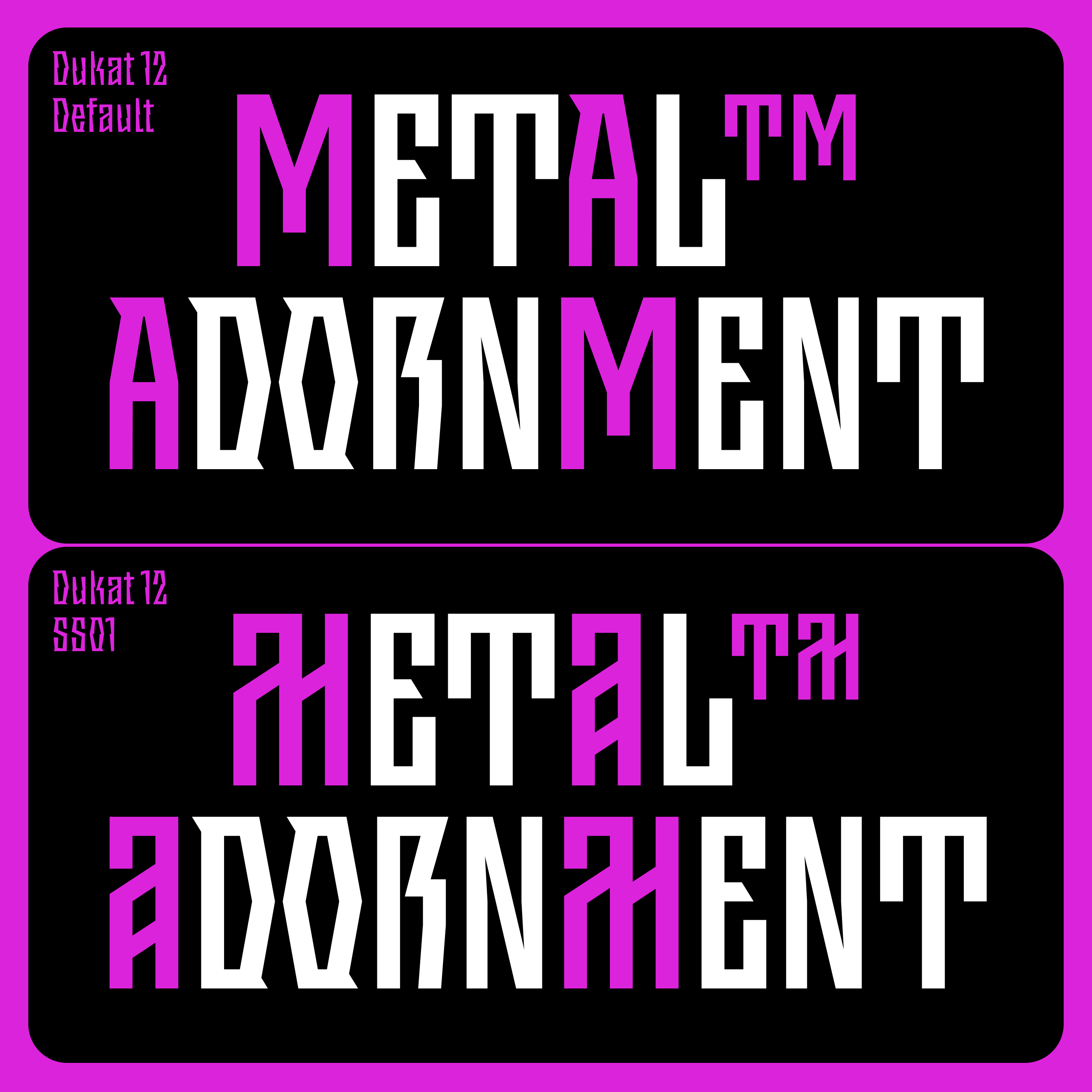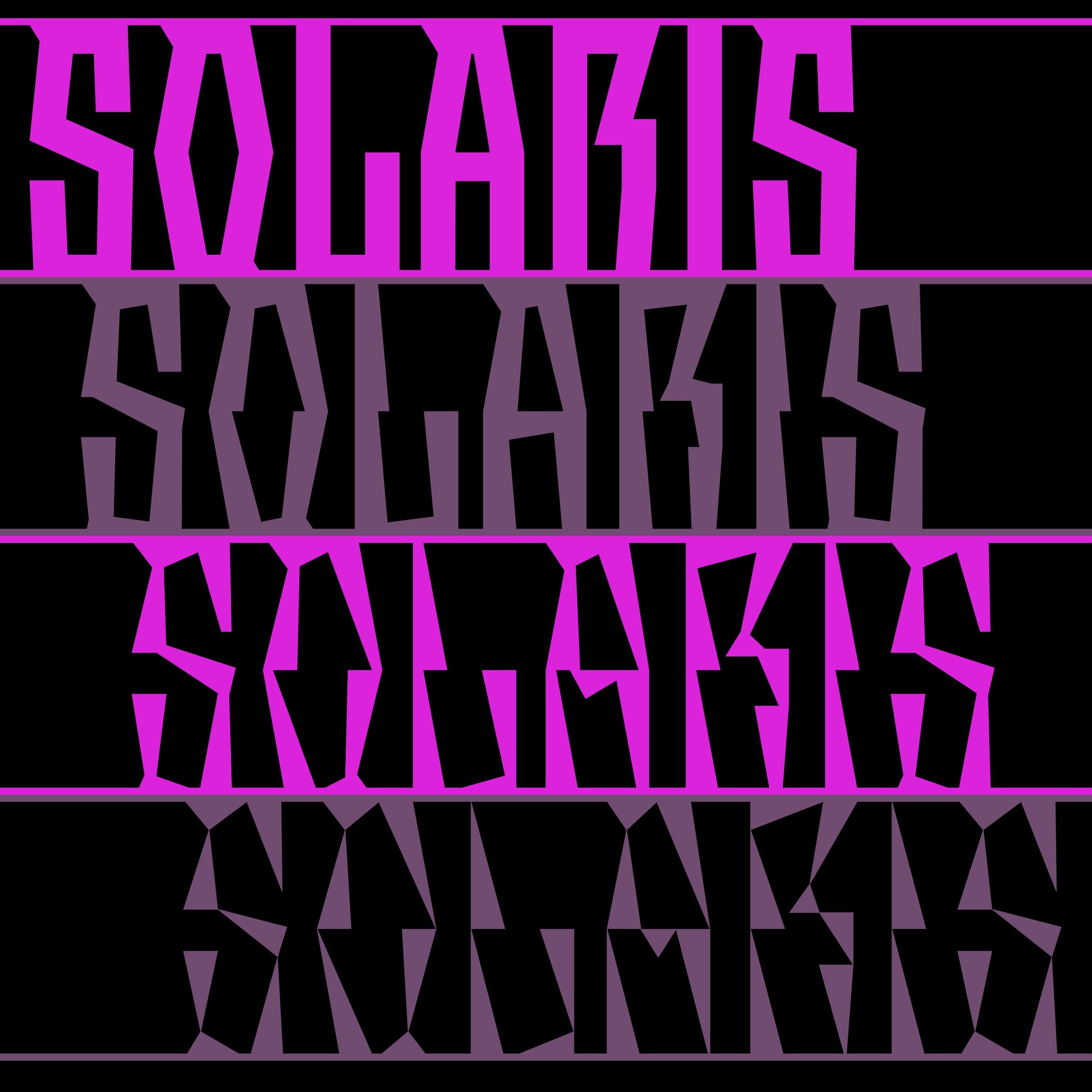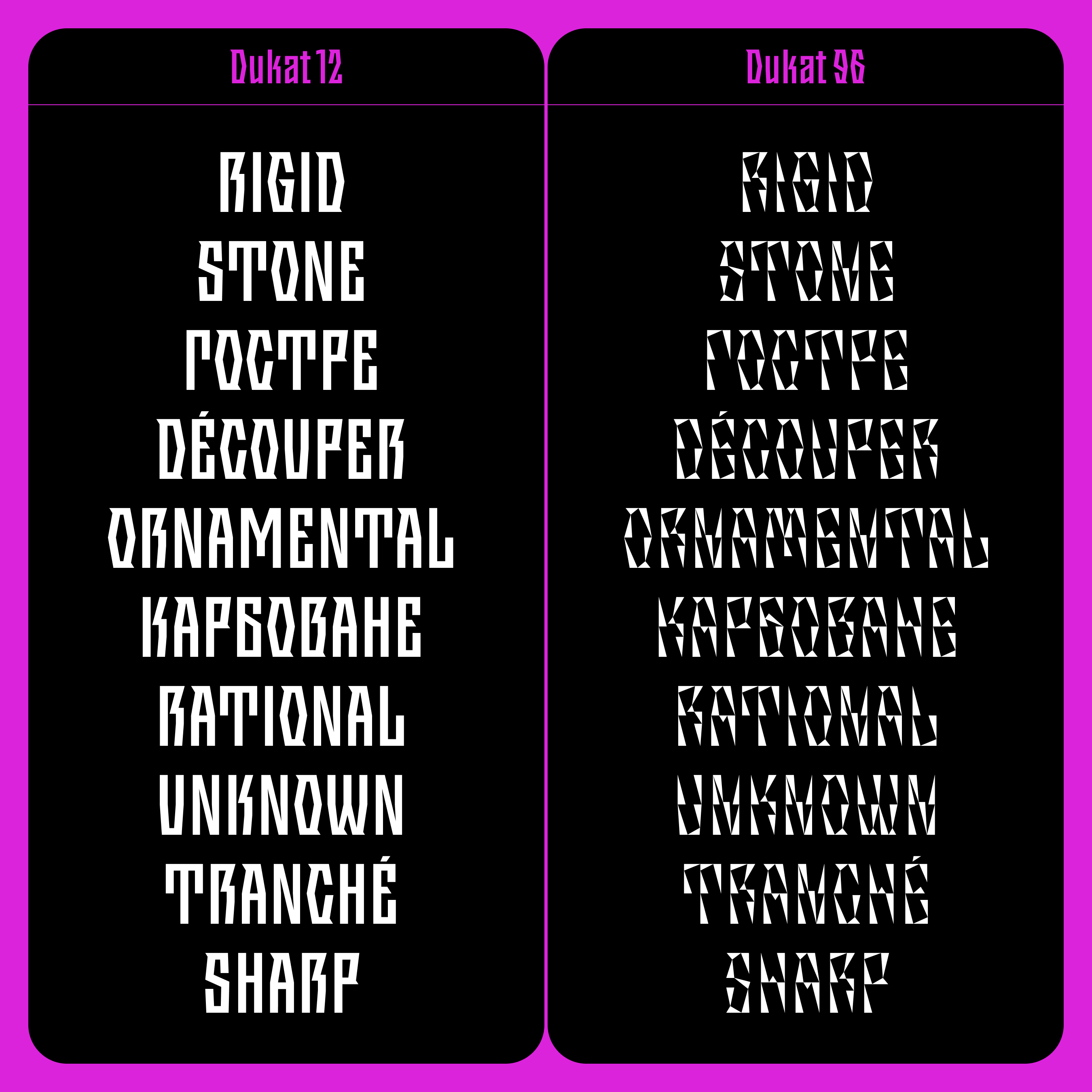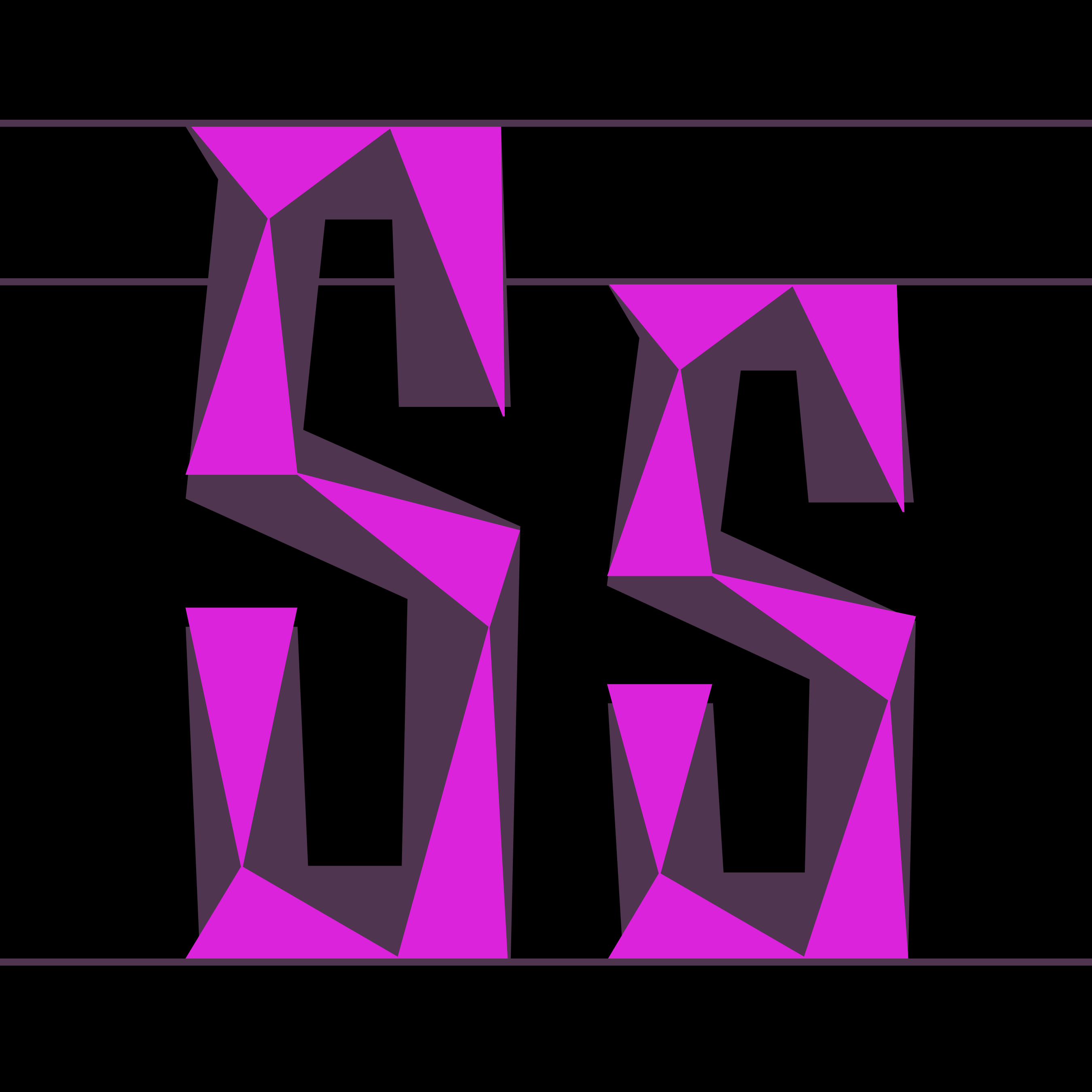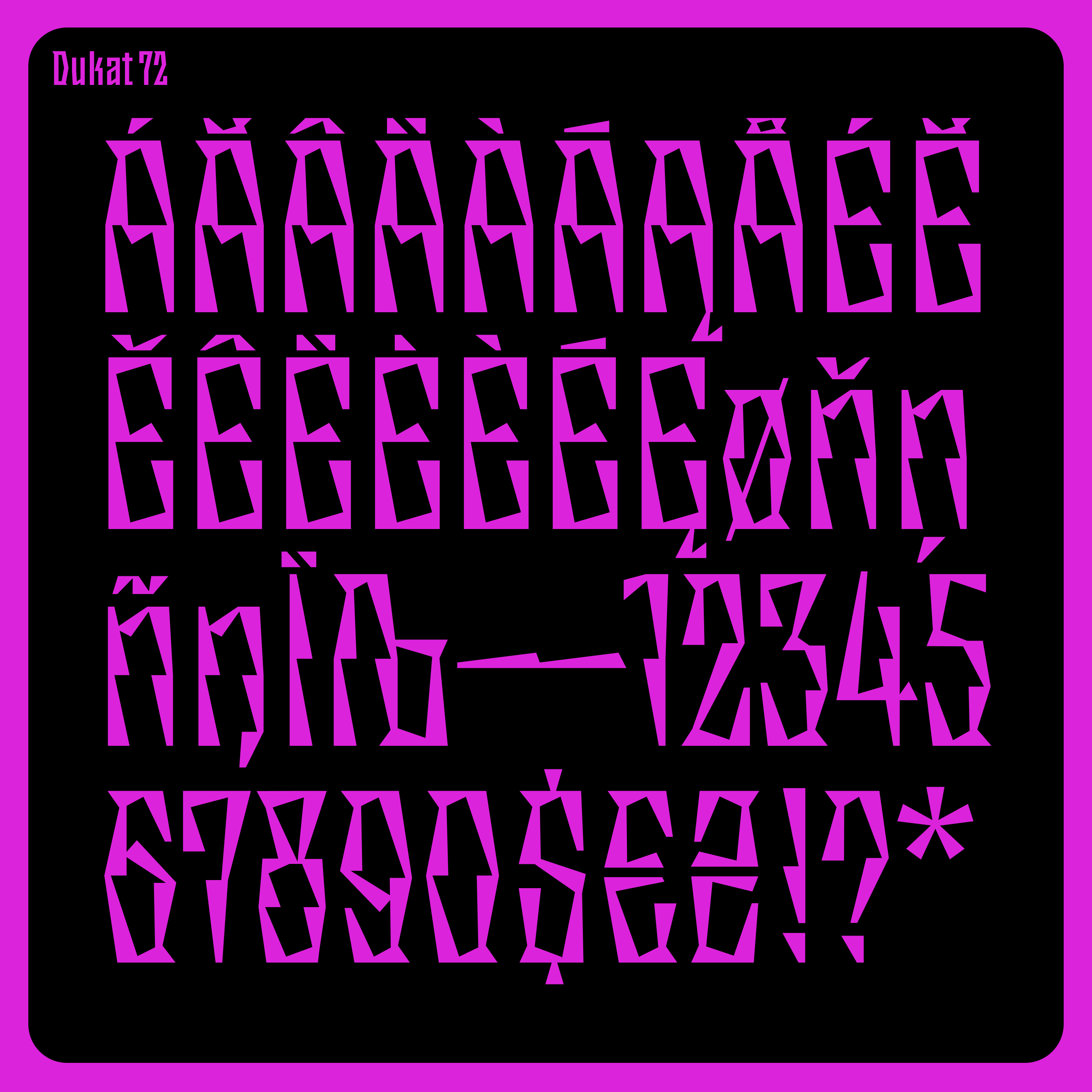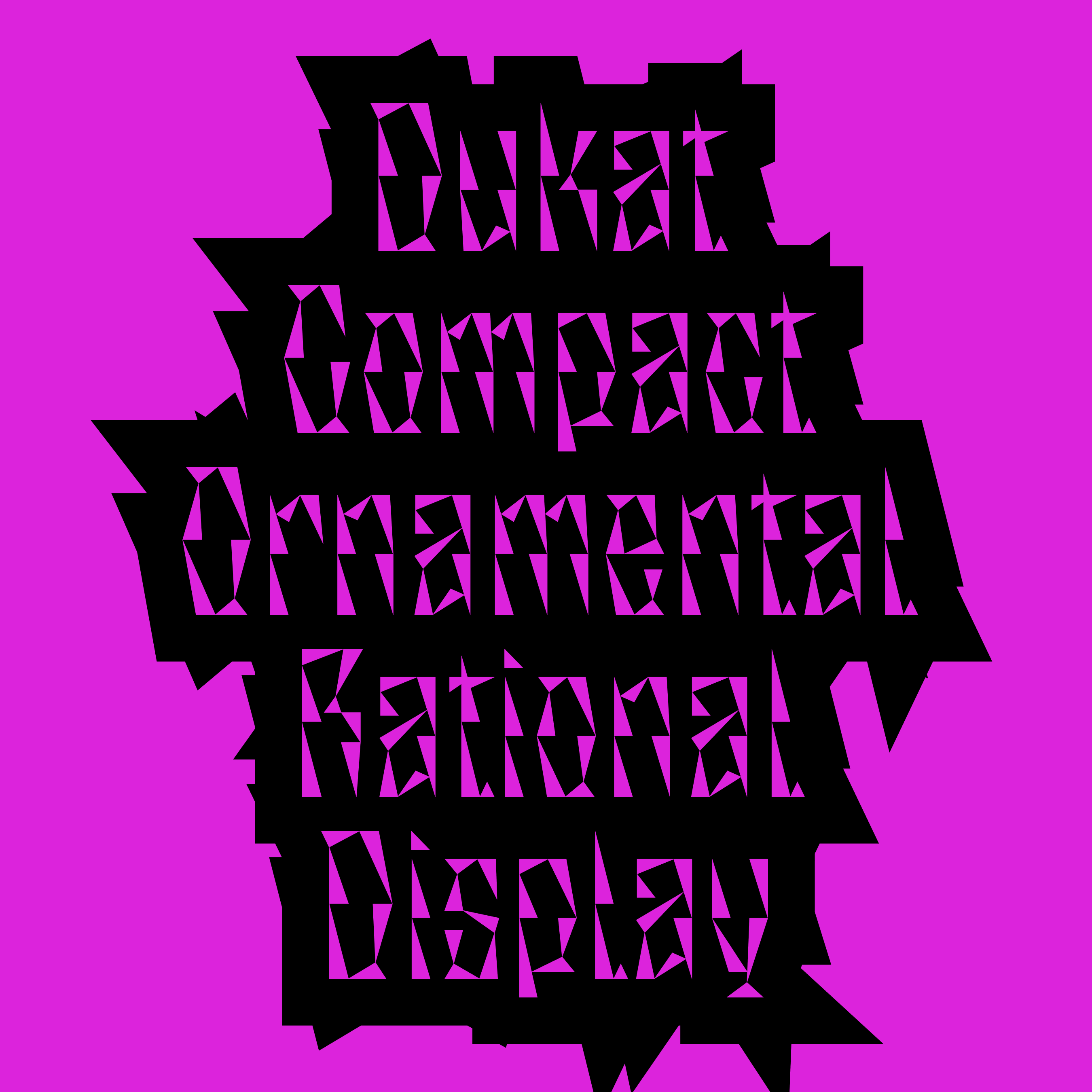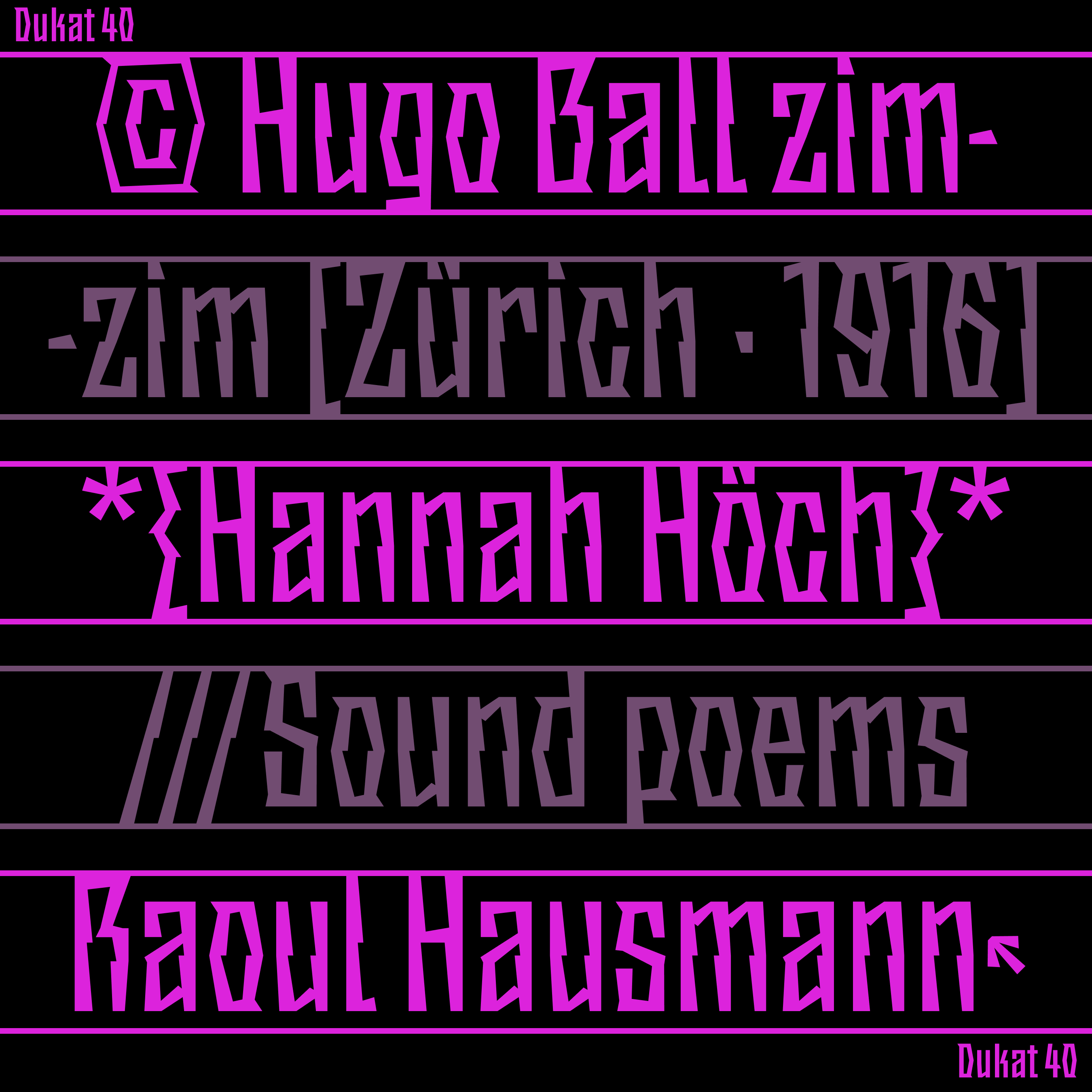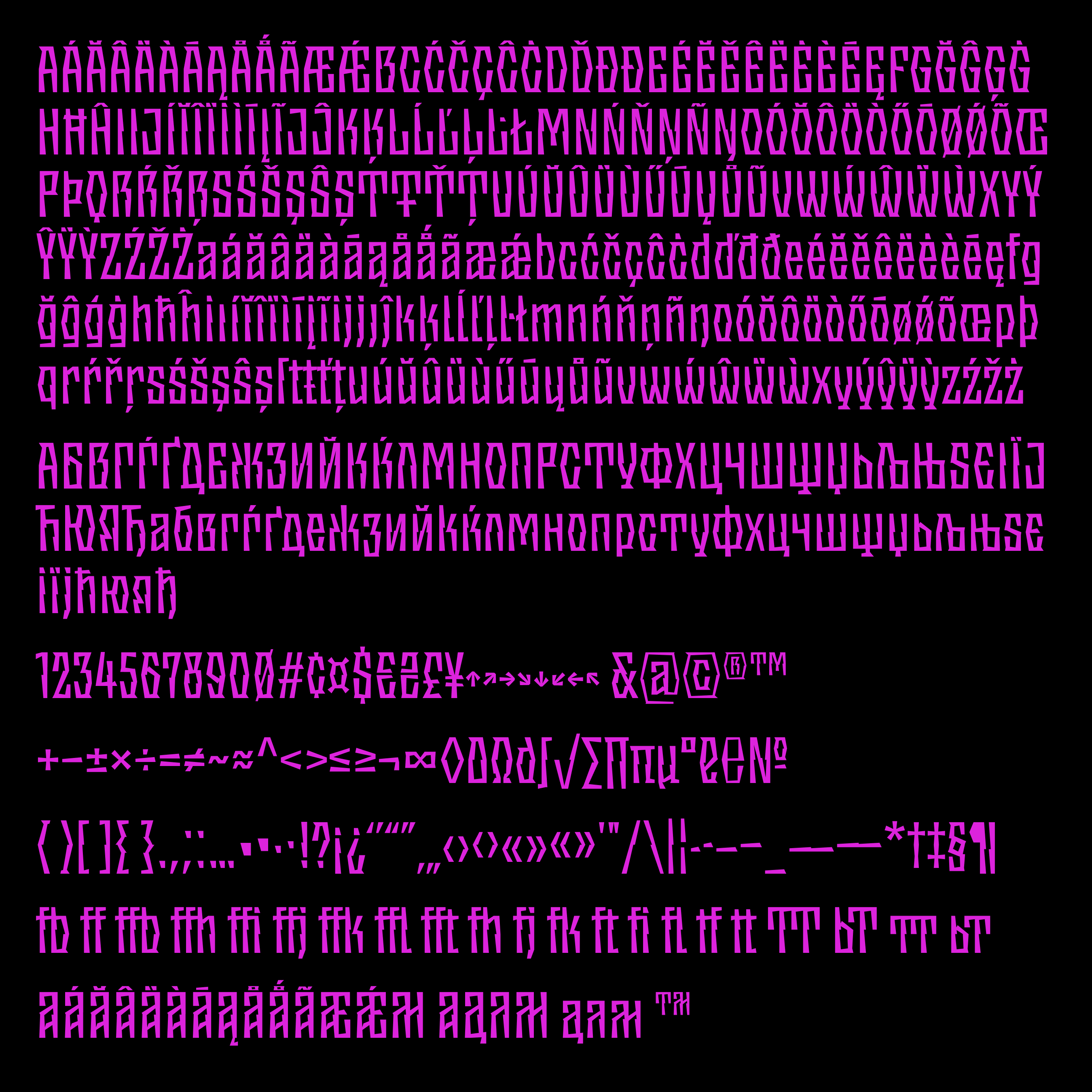
Dukat Typeface
Dukat is an experimental display typeface inspired by modularity and decorativeness of Vyaz — a historic decorative script used in Ukrainian manuscripts. Another source of inspiration was weathered vinyl signage that slowly peels and disappears, turning letterforms abstract and ornamental. Letter in each style remains the same width reflecting how real vinyl letter could look like in the beginning and how destructured it became with the time.
• Latin (Basic, Western European, Central European, South Eastern European)
• Cyrillic (Ukrainian, Serbian, Macedonian)
• 544 Glyphs
• 5 Styles (Dukat 12, Dukat 40, Dukat 56, Dukat 72, Dukat 96)
• Variable technology
• Lowercase
• Diacritics
• Ligatures
• Alternates
• Symbols
• Currency
• Mathematics
• Arrows